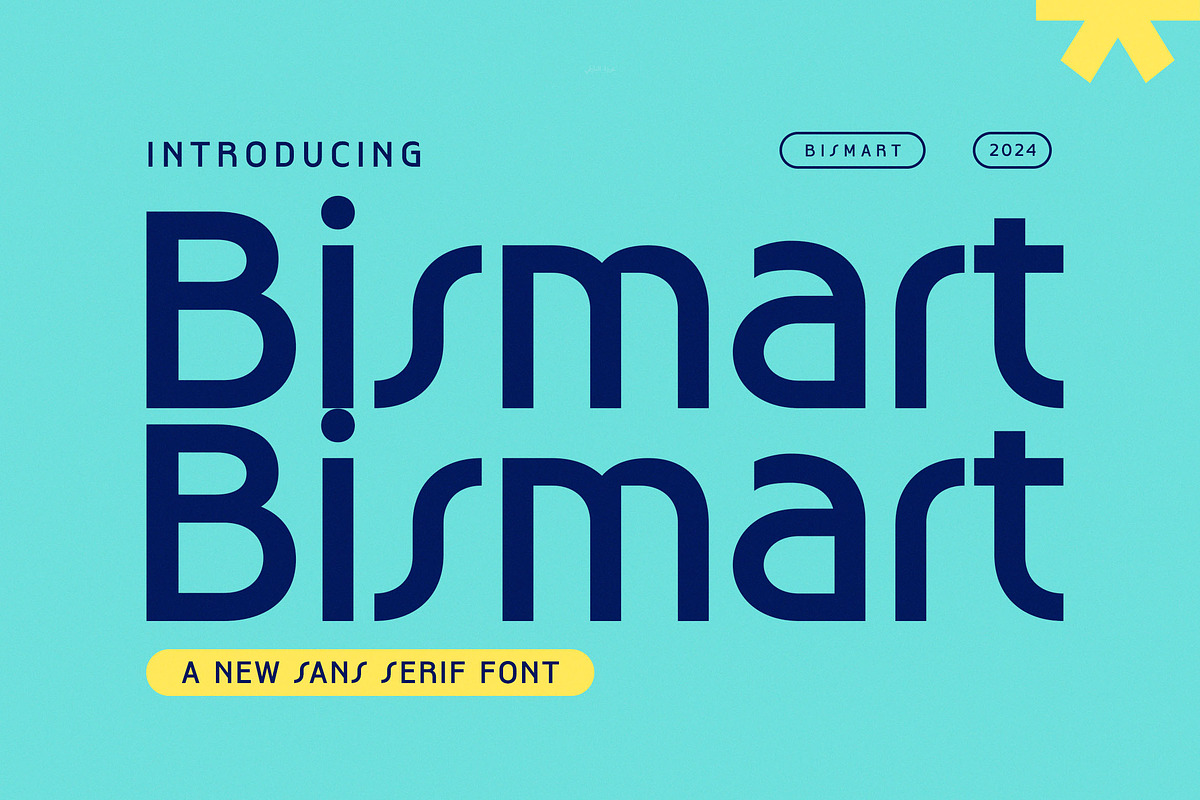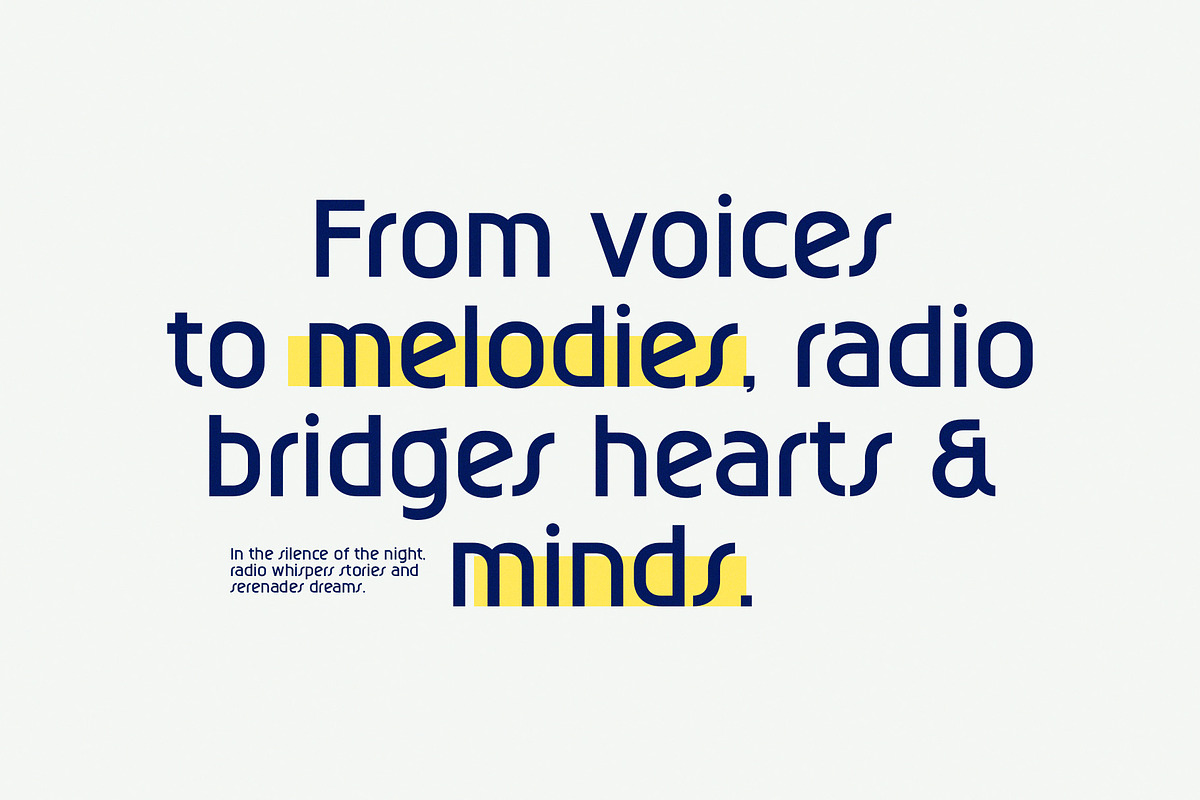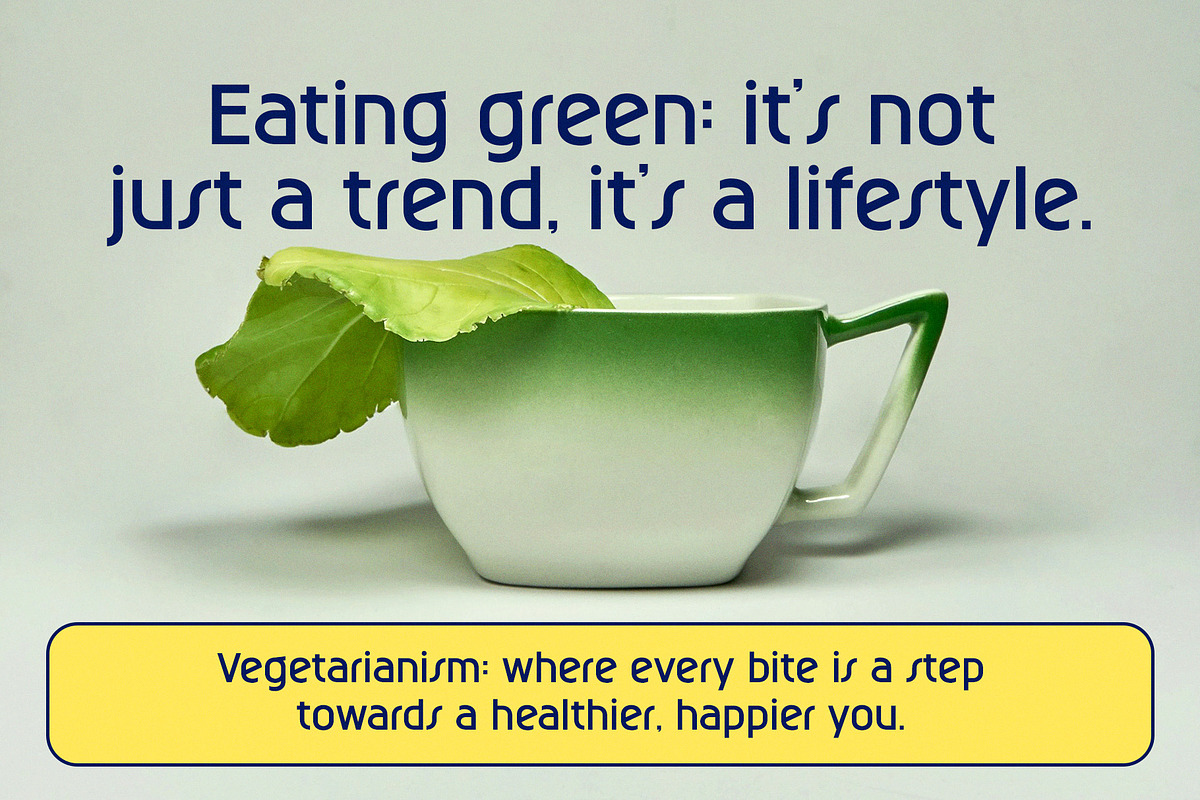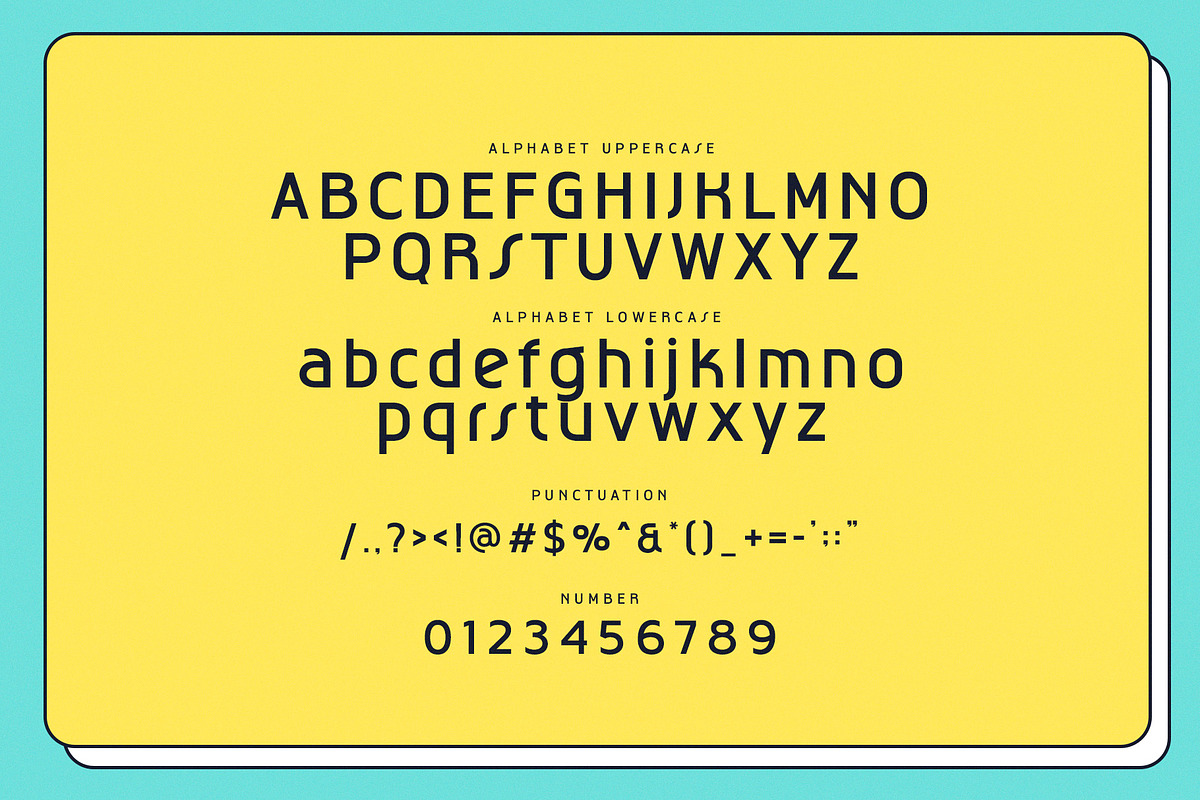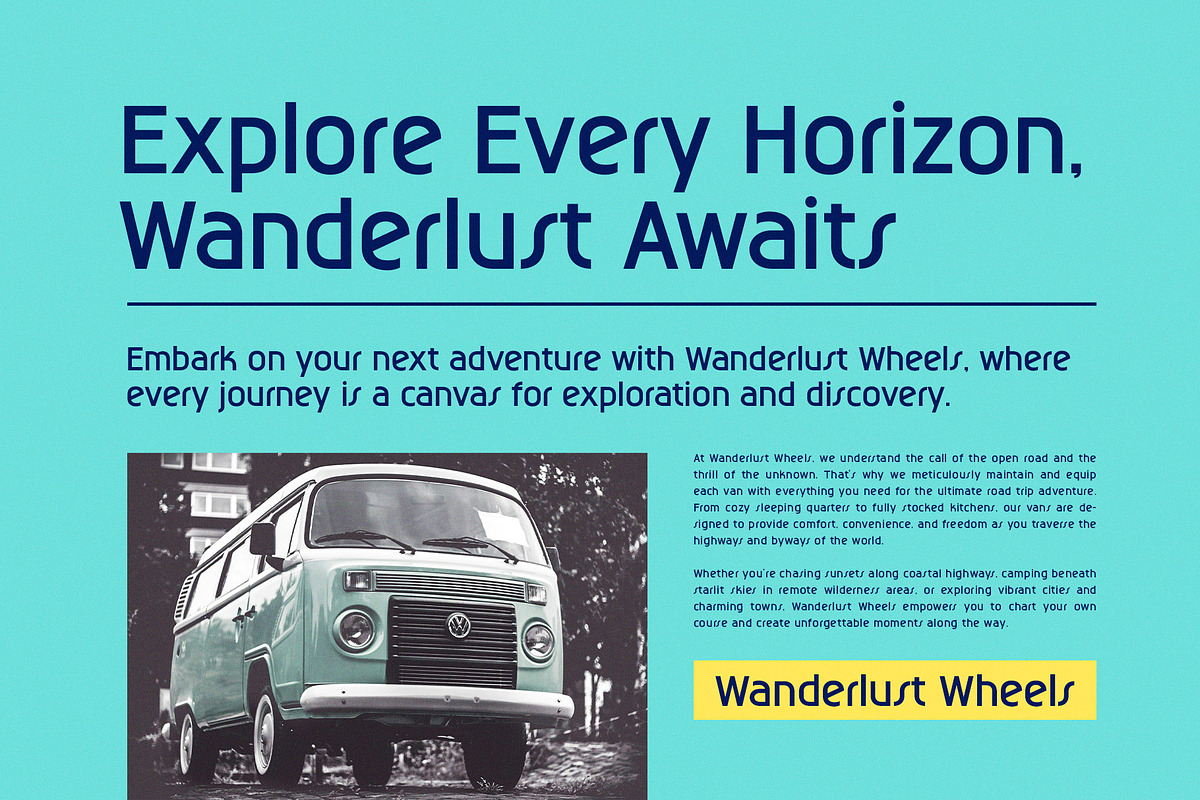
Bismart - Modern Sans Serif
Introducing Bismart - Modern Sans Serif. Bismart is a modern and simple font, best used as a display for headings, logos, branding, magazines, product packaging and invitations. Thank you.